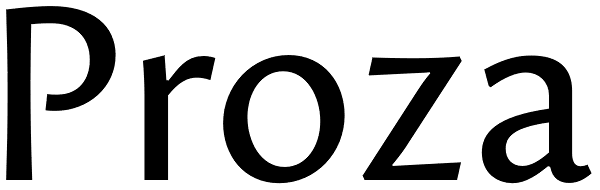
Proza
Proza is a humanist sans serif typefamily, consisting of 12 styles (6 weights + italics), with roots in serif designs from the Renaissance, such as Garamond and Jenson. Proza was made to function well at a large range of sizes, from the smallest of...